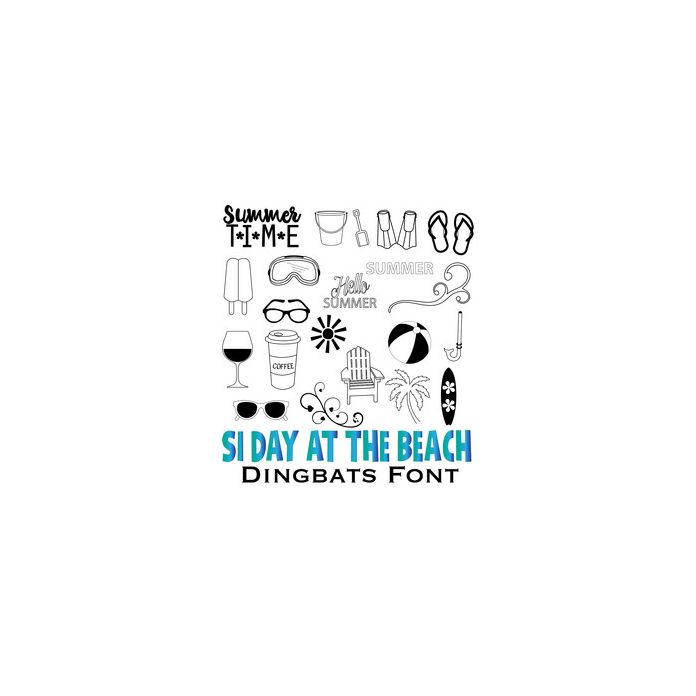
si day at the beach dingbats font
This dingbat font contains 26 different designs to type and cut. They can be used in a variety of projects. They can be used to create on tattoo paper, window clings, tags, cards, charts, planners, stamps, scrapbooking, labels - a lot of projects. They can be re-sized without affecting the quality. Connect with us at: https://www.facebook.com/sandiscribbles